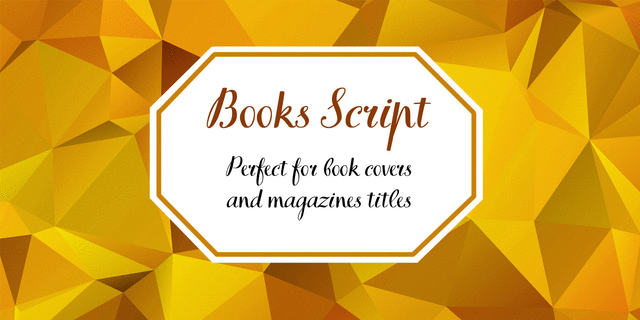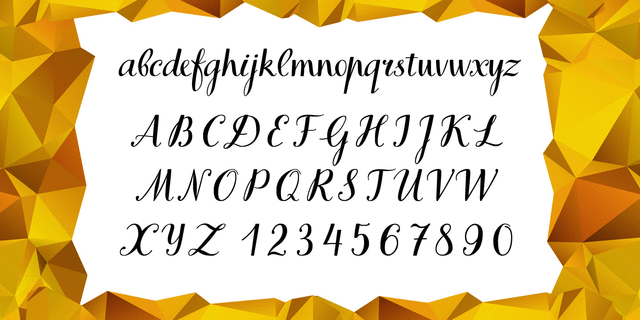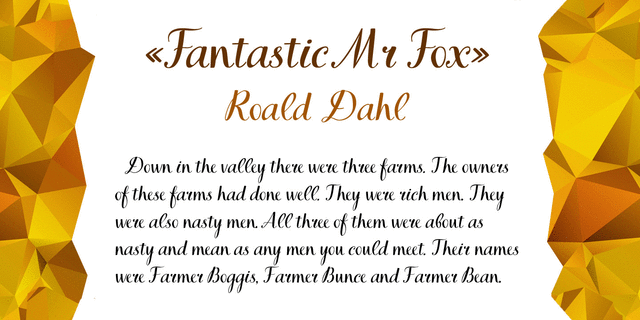
TT Books Script (1)
Books Script — this is a good-hearted font, which was created based on the books of the Soviet period between 1960 and 1970. This font is perfect for illustrators and books which are designed for children. Books Script designed by Ivan Gladkikh, in TypeType studio in 2015.
fairy, children, naive, New Year, magic, cute, poetic, artistic, spring, summer, festive, fresh, kind, green, musical, rhythmic, orderly, sentimental, sensual, polite, dashing, informal, playful, cheerful, restless, emotional, naughty, mischievous, agile, interesting, original, freewheeling, provocative, nostalgic, vigorous, distinctive, affable, alive, girlish, cartoonish, delicious, man-made, cool, Curly, natural, friendly, good-natured, fanciful, intricate, home, organic, creative, autumn, nice, Artisanal, craft brewed, happy, glad, vegetable